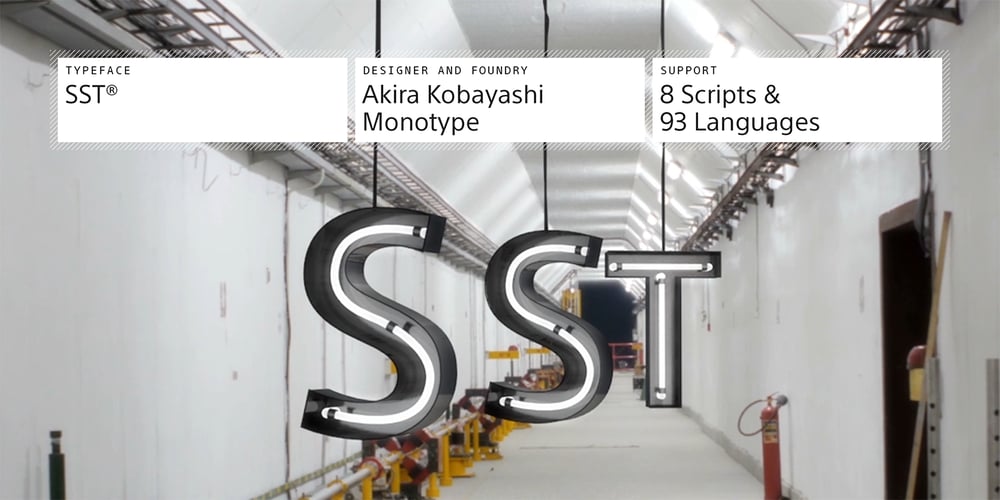
SST Font Family was designed by Akira Kobayashi and published by Monotype. SST contains 17 styles and family package options. Designed for global branding and supporting 93 languages, the SST® typefaces blend the organic readability and controlled structure of modern sans serif designs. In combining these attributes, the SST family is understated, versatile – and sure to be a timeless design. The SST Pan-European family has 17 fonts in total, supporting the W1G character set. It spans six weights from ultra light to heavy, each with an italic complement. In addition, three condensed designs and two monospaced (typewriter) typefaces were drawn to further expand the family’s vast range of uses. SST’s subtle design traits provide a quietly handsome and consistently friendly typographic presence that can be used for just about any typographic application. Broad range branding applicability combined with coverage for almost a hundred languages, makes SST one of the most widely accessible and usable typefaces available. Originally designed in partnership with the global consumer brand, Sony, the SST family is one of the most comprehensive type families available. Since extensive multi-lingual support was a critical design goal from the beginning, Akira Kobayashi, Monotype type director and primary designer on the project, turned to a network of local designers around the world for their individual language expertise. As a result, the details – which could be as subtle as stroke curvature and width – are consistent across Latin, Greek, Cyrillic, Arabic and multiple Asian languages. SST performs equally well in print and on-screen and the designs can be used at very small sizes in packaging and catalogs; while massive print headlines – even complicated wayfinding projects pose no stumbling blocks to the family’s typographic dexterity. While the family is also large enough to manage complicated typographic hierarchy, SST pairs handsomely with typefaces as far reaching as ITC Berkeley Old Style®, Meta®, PMN Caecilia®, Malabar® and Neue Swift®.